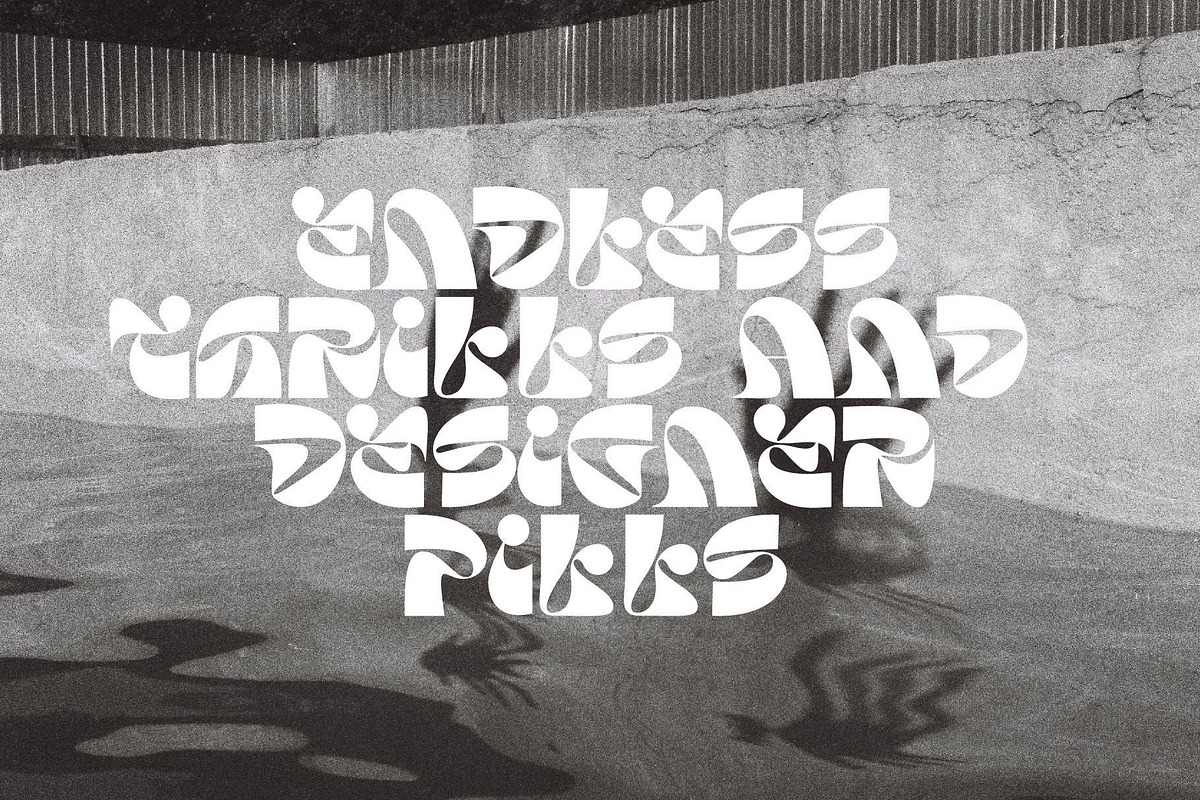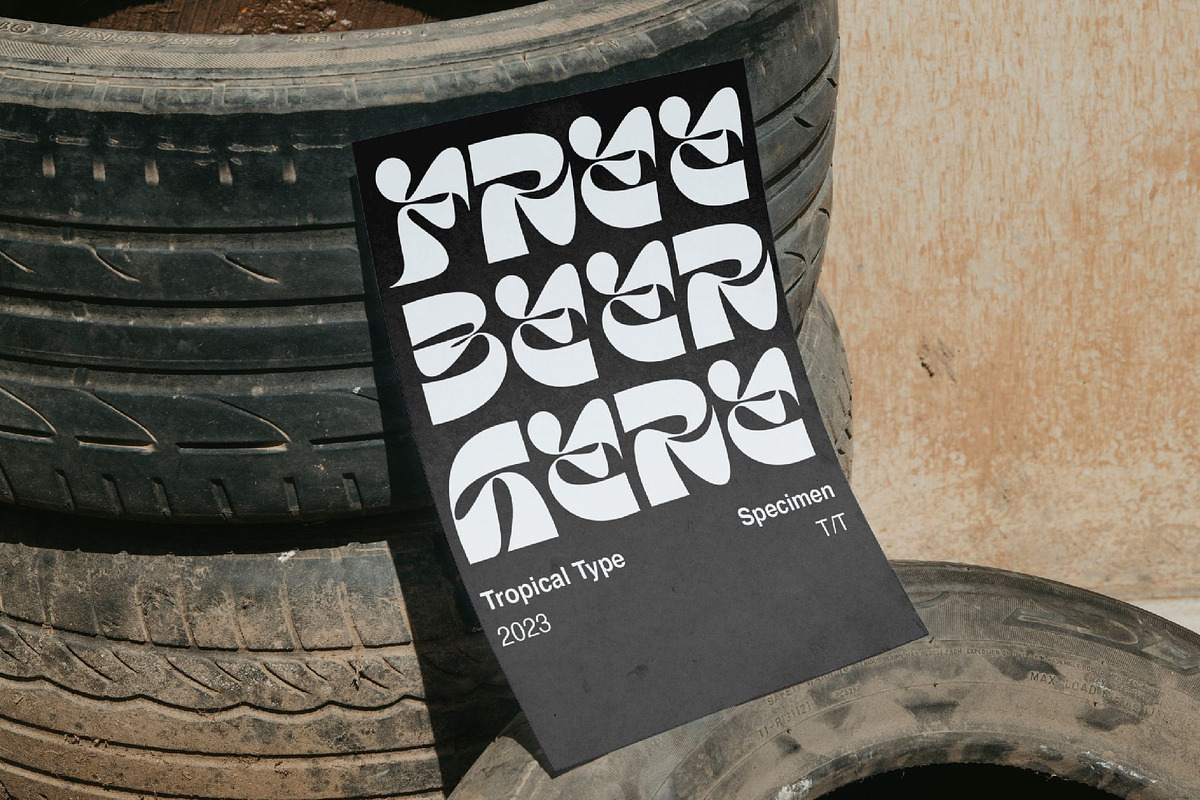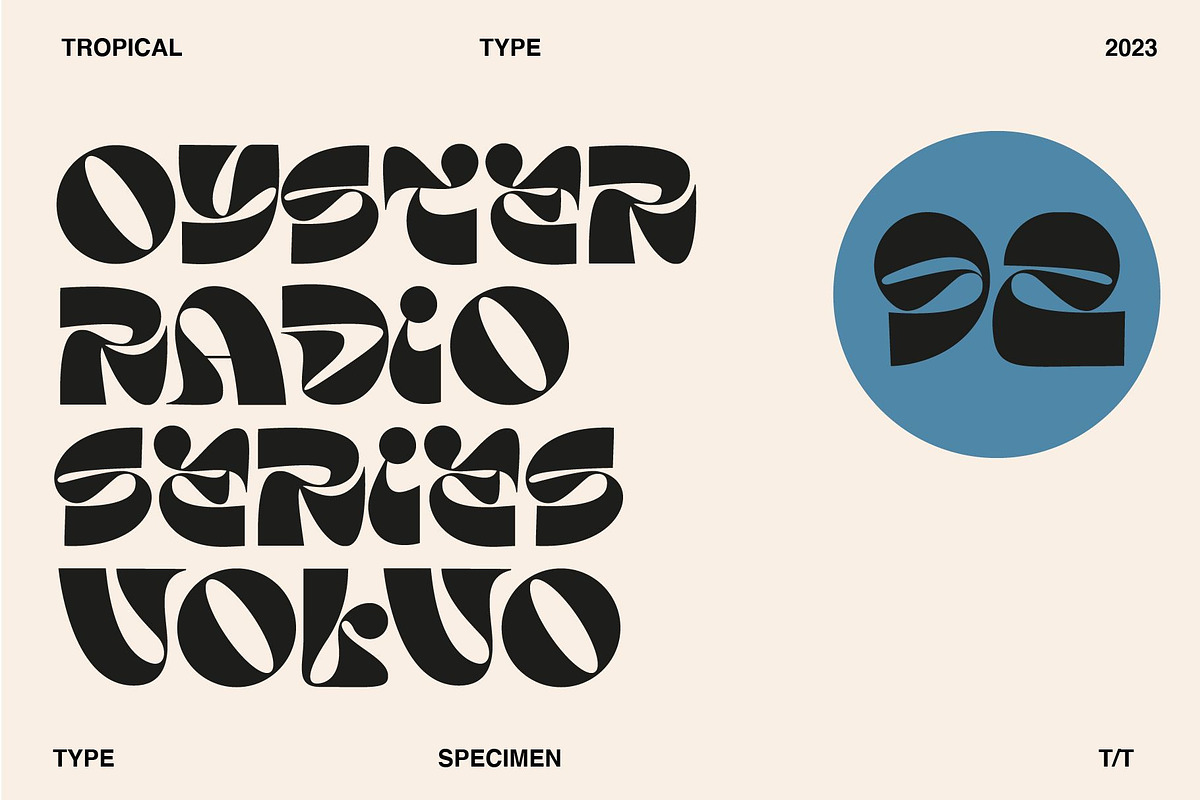
Fender is an experimental caps font with all sorts of shapes in all sorts of places. Great for funky posters, trippy logos and more. OTF, TTF, WOFF, WOFF2, SVG font files Included.